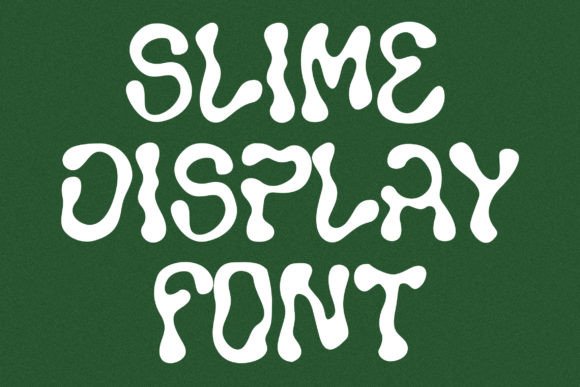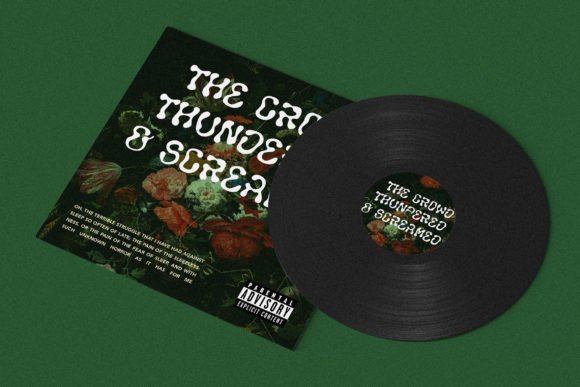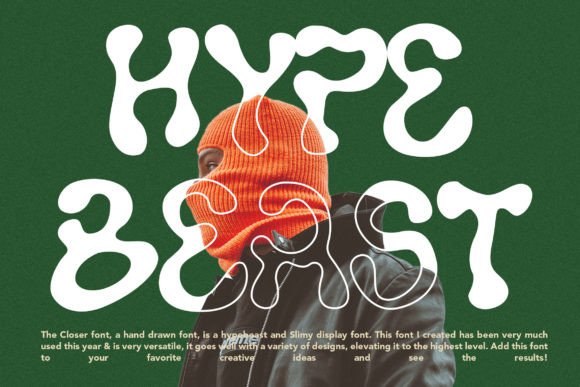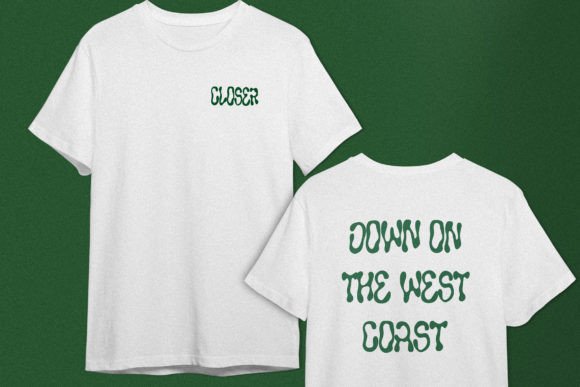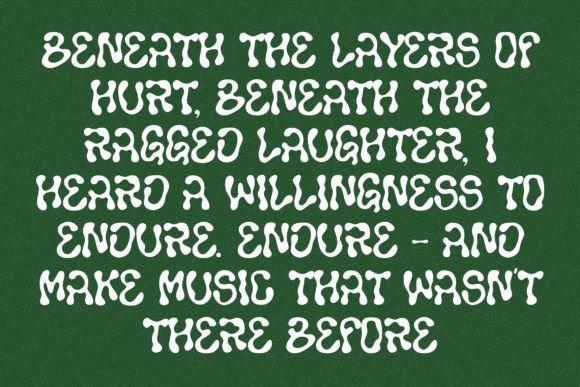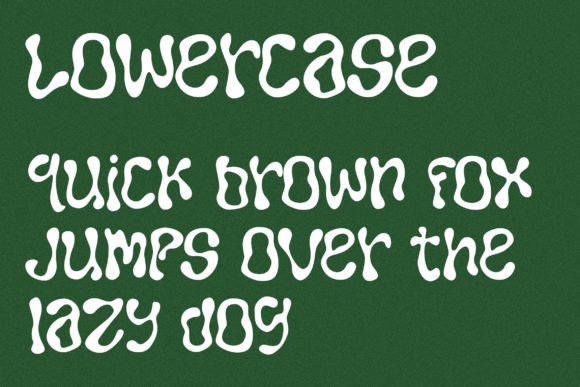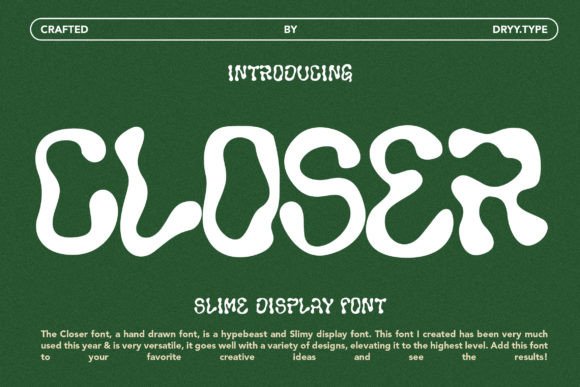
Meet the Fun and Offbeat “Closer” Font!
Have you ever been working on a design project, and suddenly, you’re stuck on finding the perfect font? I recall a recent experience where I was tasked with creating a whimsical poster for a children’s workshop, and I just couldn’t find the right fit. That’s when I stumbled upon the “Closer” font, and it instantly brought my design to life! With its quirky and unconventional design, this display font exudes a sense of playfulness and creativity, perfect for adding a touch of whimsy to any project.
A Personal Review of Closer Font
What I Love About Closer Font ✨
- ✅ Unique and standout design that’s sure to grab attention
- ✅ Perfect for headlines, posters, and packaging that need a lighthearted touch
- ✅ Highly legible, even at larger font sizes
- ✅ Extensive OpenType features, including glyphs and stylistic alternates
- ⚠️ May not be suitable for body text or smaller font sizes due to its bold and playful nature
- ⚠️ Limited use of punctuation and special characters, but this is a common limitation for display fonts
The Backstory Behind Closer Font
Closer Font was designed by a young and talented type designer who wanted to create a font that would bring a smile to people’s faces. Inspired by the world of graffiti and street art, Closer Font is a reflection of the designer’s love for playfulness and creativity. With its unique and quirky design, Closer Font is sure to add a touch of whimsy to any project.
| Font Name | Closer Font |
| Author | Dryy.type |
Q: What is Closer Font best used for?
Closer Font is perfect for headlines, posters, and packaging that need a lighthearted and playful touch. It’s ideal for designs that require a bold and attention-grabbing font.
Q: Can I use Closer Font for body text?
While Closer Font is highly legible, it’s not recommended for body text or smaller font sizes due to its bold and playful nature. It’s best used for display purposes only.
Q: Does Closer Font have any special features?
Yes, Closer Font has extensive OpenType features, including glyphs and stylistic alternates. These features allow you to add more personality and variety to your designs.
Q: Is Closer Font easy to read?
Yes, Closer Font is highly legible, even at larger font sizes. Its unique design makes it easy to read and understand, making it perfect for headlines and titles.